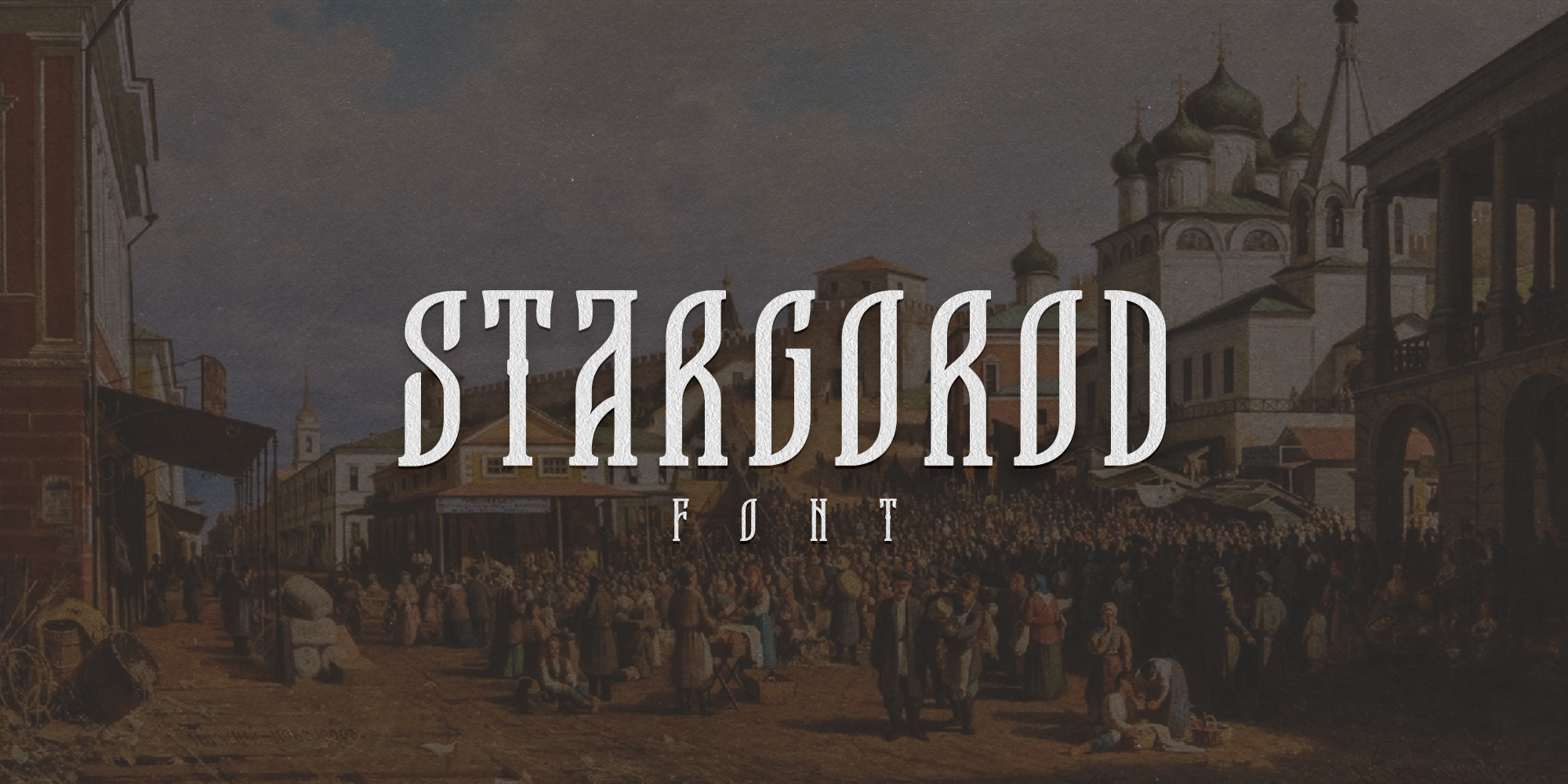
TD Stargorod Font is perfect for Eastern European restaurants, Slavic cultural festivals, Russian literature publications, Soviet-era historical exhibits, classical music conservatories, traditional Orthodox church materials, vintage Communist propaganda reproductions, Eastern European heritage centers, Cyrillic language schools, and authentic Slavic cultural designs.
TD Stargorod Font is exciting because it preserves the dignified grandeur and cultural gravitas of Eastern European typography with stately letterforms that evoke the rich literary tradition and historical depth of Slavic civilization, making it perfect for brands celebrating authentic Eastern European heritage and cultural sophistication.
The TD Stargorod Font family includes regular and bold weights with Cyrillic character support, Eastern European ornaments, and traditional Slavic decorative elements, providing designers with culturally authentic tools for creating typography that honors centuries of Eastern European artistic and intellectual achievement.
When your project requires Eastern European authenticity and Slavic cultural dignity, TD Stargorod Font Free Download delivers the perfect typographic foundation for honoring Slavic heritage and cultural tradition. This distinguished typeface combines historical gravitas with contemporary functionality, ensuring your communications resonate with audiences seeking genuine Eastern European experiences and cultural depth. The stately letterforms and traditional styling make this font an essential choice for cultural institutions, educational organizations, and any application where Eastern European heritage, Slavic tradition, and historical authenticity are crucial for establishing credibility and connecting with communities that cherish their rich cultural legacy and the enduring wisdom of Eastern European civilization.